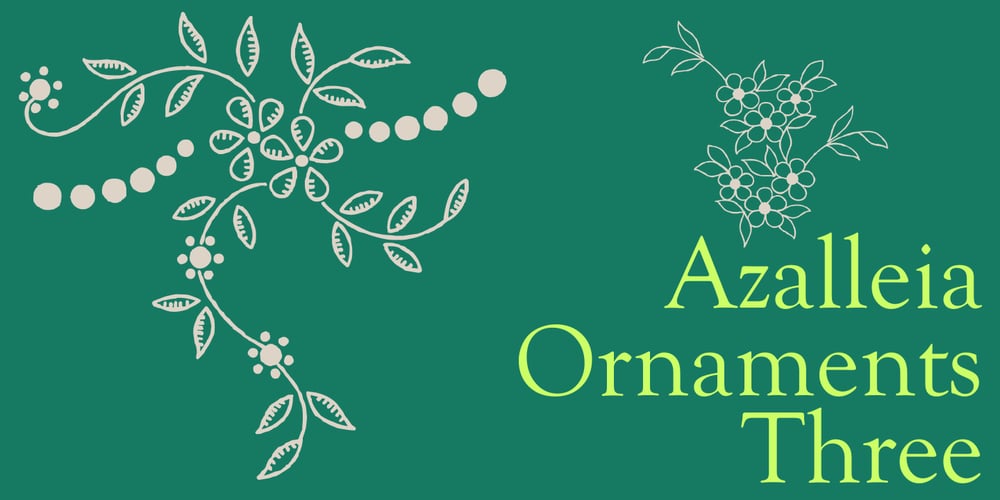
Azalleia Ornaments Font Family was designed by Iza W and published by Intellecta Design. Azalleia Ornaments contains 3 styles and family package options. Azalleia Ornaments is a new flourished ornaments typeface. Well elaborated and unusual design, inspired by old cross-stitch and craft books and entirely designed by hand, without use of auto-tracing and available in two different designs.